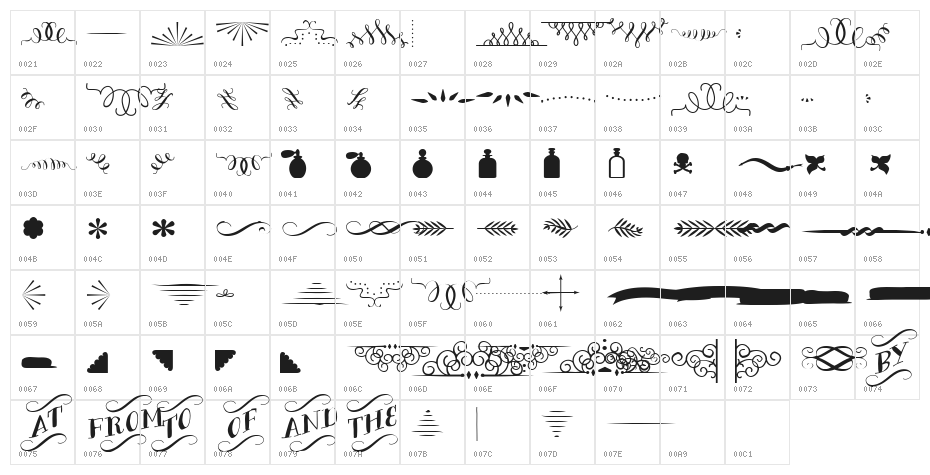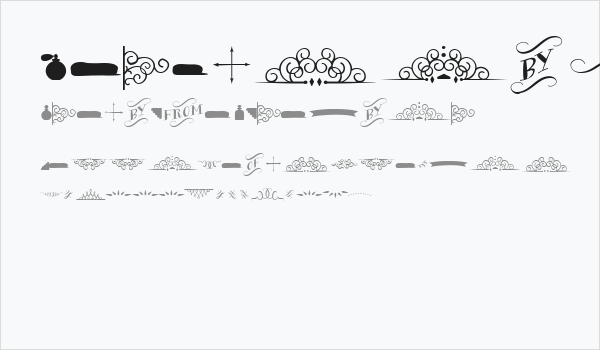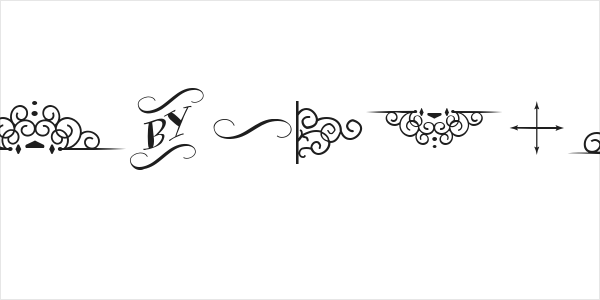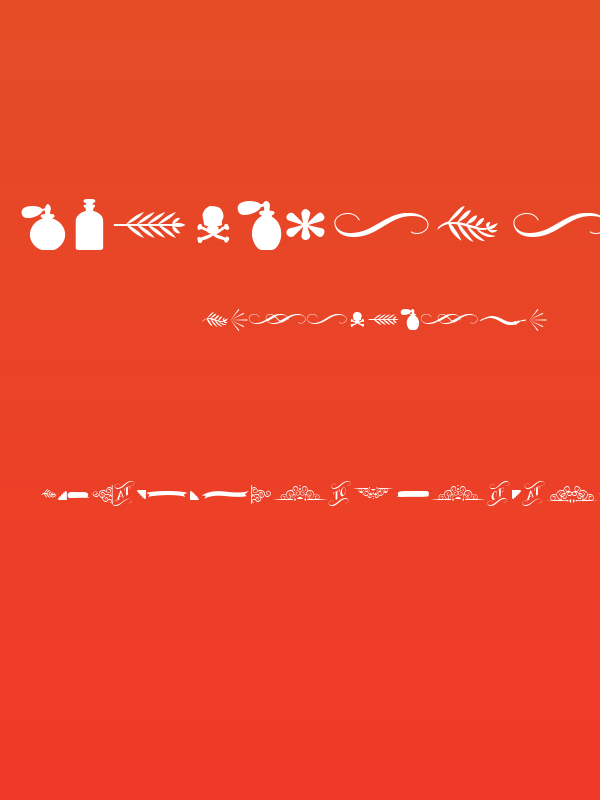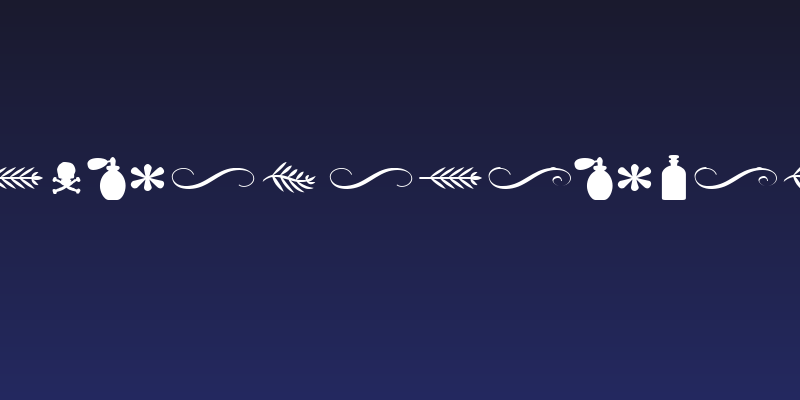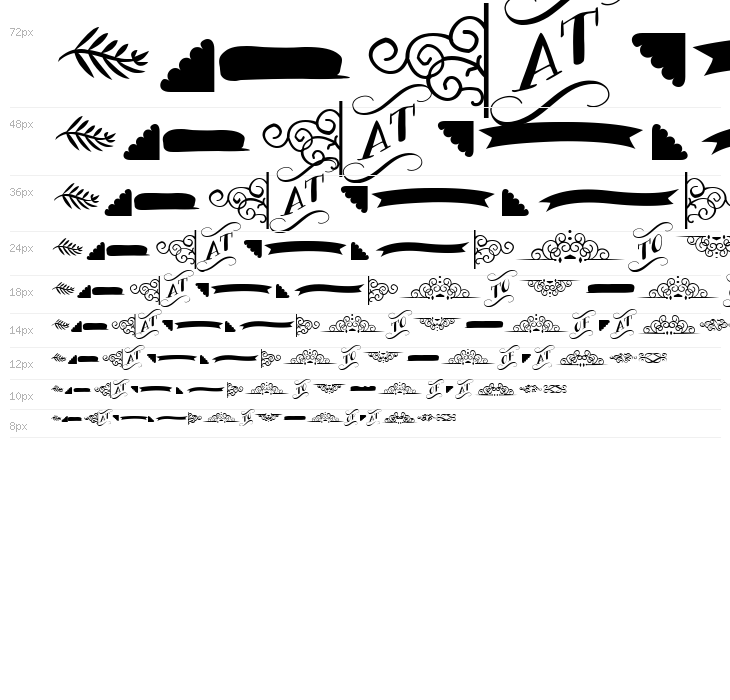
Bergamot Ornaments Font
Bergamot Ornaments Description
This collection of decorative ornaments features a variety of intricate and elegant designs, perfect for adding a touch of sophistication to any project. The elements include vintage-style perfume bottles, ornate arrows, and delicate flourishes that evoke a sense of classic charm. The designs are highly detailed, with a mix of bold and fine lines that create a striking contrast. These ornaments are ideal for use in invitations, stationery, and branding materials, offering a timeless aesthetic that can enhance the visual appeal of any design. The set also includes decorative text elements with a script-like quality, adding a personalized touch to your creations.
| Use Case | Decorative accents, Invitations, Branding |
| Proposed Projects | Ideal for invitations, stationery, branding materials, and decorative accents in design projects. |